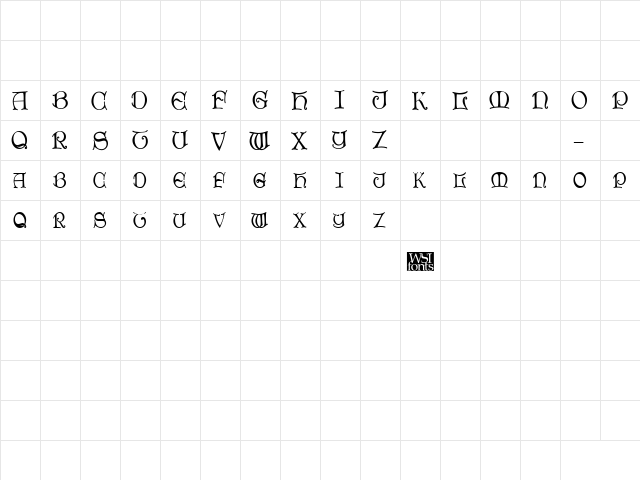
ThorinDisplayCaps Bold
Design Context for ThorinDisplayCaps Typeface
ThorinDisplayCaps is built around its visual character rather than neutral utility — its distinctive forms are designed to make an impression at display sizes. The heavy weight commands attention and anchors typographic hierarchies.
Font Pairing: Pair with a clean neutral sans-serif for body copy to let ThorinDisplayCaps's character lead without overwhelming the composition.
Pro Tip: Treat ThorinDisplayCaps as the centrepiece of your typographic hierarchy. One strong heading set in a decorative face can carry an entire layout.